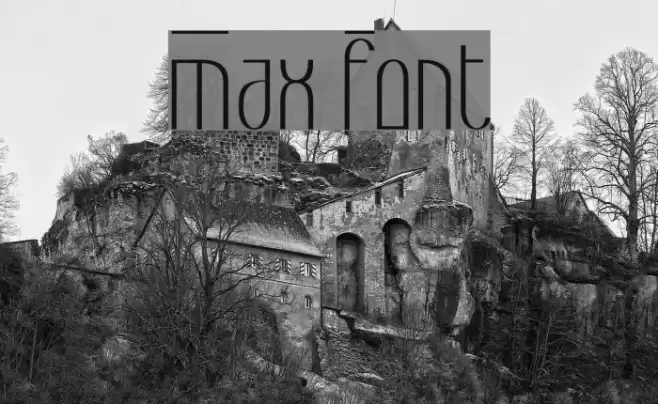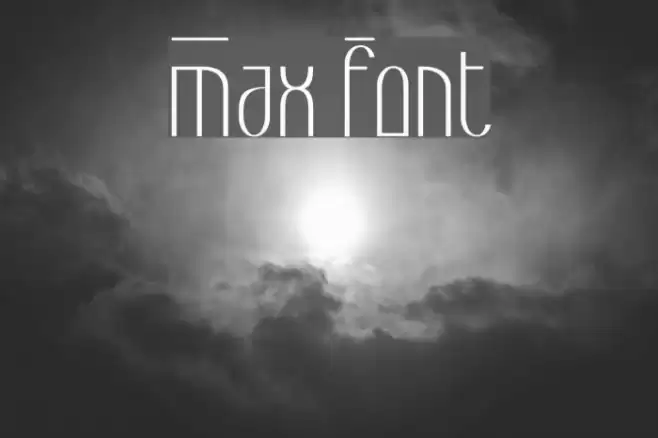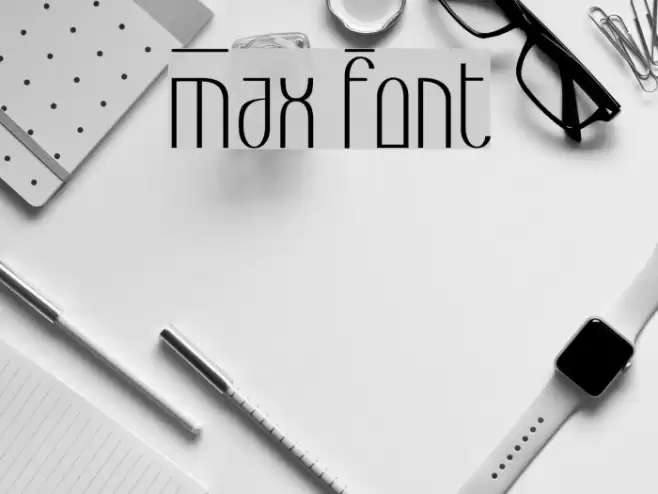
Max Font
Max Description
This font features a modern and sleek design with elongated, narrow characters that give it a distinctive and elegant appearance. The letters have a consistent stroke width, contributing to a clean and minimalist aesthetic. The uppercase and lowercase letters are designed with a geometric precision, while the numerals and special characters maintain the same stylistic approach. The overall look is both futuristic and sophisticated, making it suitable for contemporary design projects. The font's unique style is characterized by its tall, slender forms and subtle curves, which add a touch of refinement and class.
| Proposed Projects | Ideal for branding, editorial design, fashion magazines, and modern web design. |